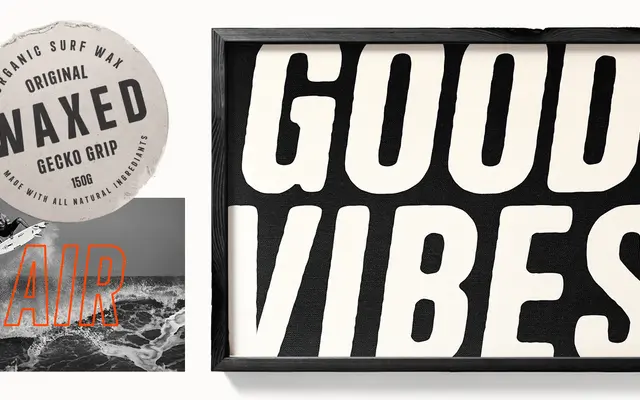
Coastal
A 12-font display sans family spanning clean, rounded, rough, hand-drawn and outline variants, aimed at headlines and poster work.
Six stylistic subfamilies each with an oblique companion give designers a range of tonal options from polished clean cuts to textured rough and hand-drawn treatments. Alternate glyphs for characters including C, E and O extend the creative toolkit further. Best suited to large-scale applications where the informal character can read clearly.
A display-weight sans with multiple decorative variants including rough, rounded, hand-drawn and outline treatments, clearly intended for large-scale headline use rather than text setting.